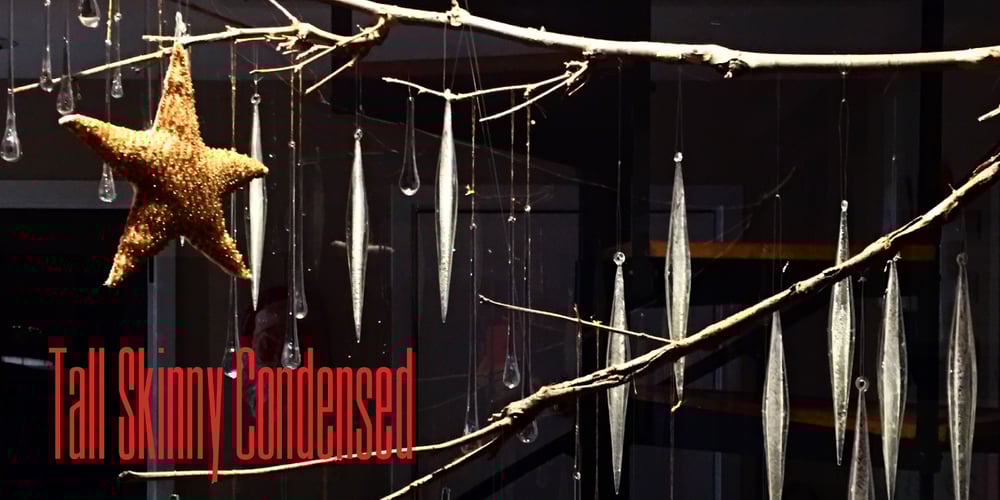
Ultra Condensed
Ultra Condensed font
Ultra Condensed Font Family was designed by Rae Kaiser and published by Outside the Line. Ultra Condensed contains 3 styles and family package options. Ultra Condensed is a three-font family with a full character set. Ultra Condensed is a remastering of Tall Skinny Condensed from 1999 which continues to be a favorite. While similar, the fonts are not interchangeable. Shapes of some letters have changed, kerning and spacing are different. Tall Skinny Condensed does not have a full character set. Ultra Condensed Lettered is a hand lettered version of the hard edged Ultra Condensed. Ultra Condensed Line also hand lettered, is a thinner version of Ultra Condensed Lettered. These three fonts work well together or with a non condensed font, great for headlines at a large size. Works well for lots of copy in a small space.